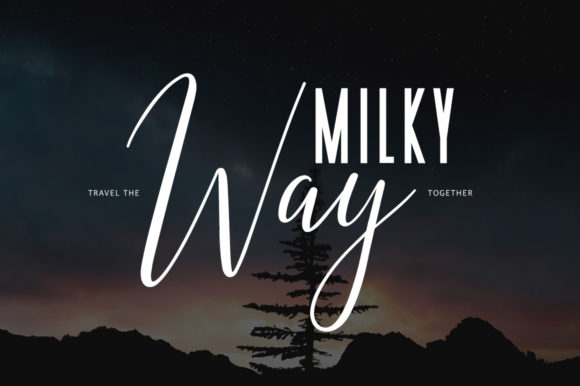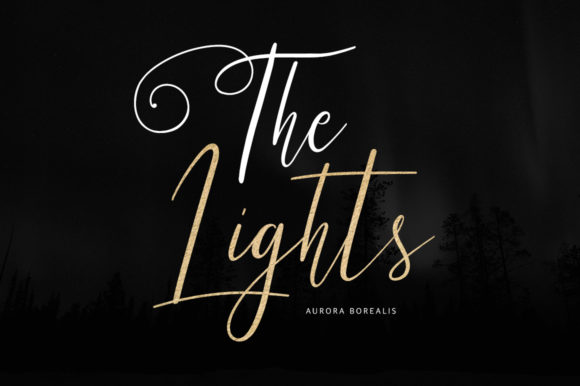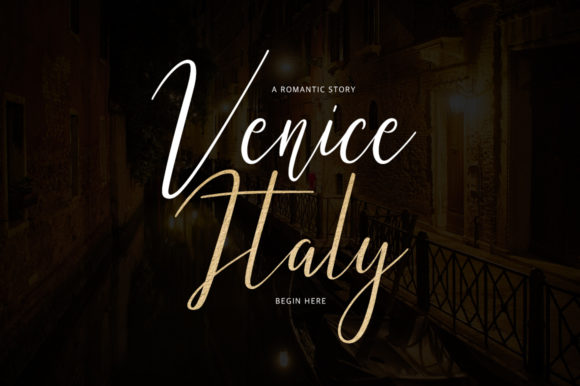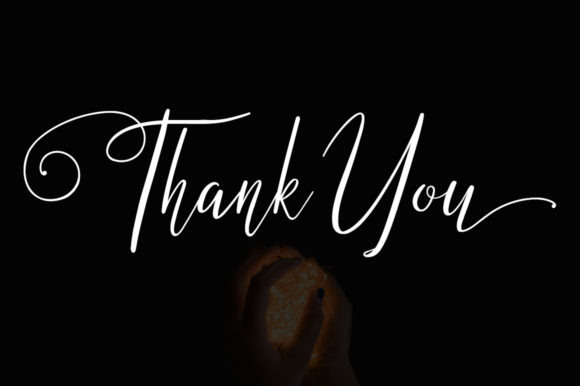
Leibra Duo Font
About Leibra Duo Font
Give your designs an authentic handcrafted feel with the Leibra. It comes in 2 styles which give you the opportunity to create multiple unique designs.
It’s perfectly suited for signatures, stationery, logos, typography quotes, magazine or book covers, website headers, clothing, branding, packaging designs, and more!